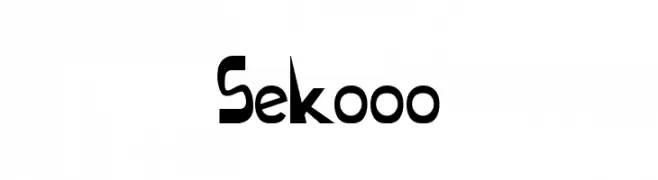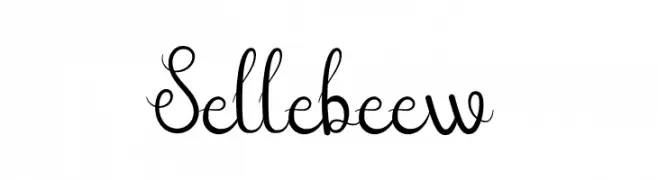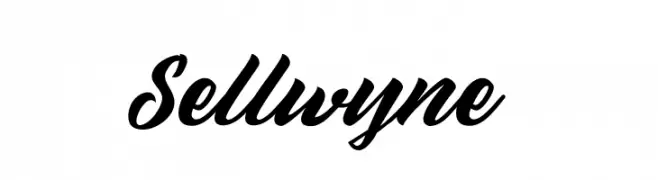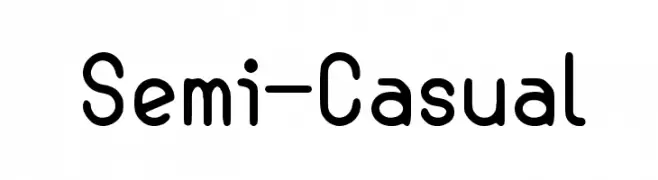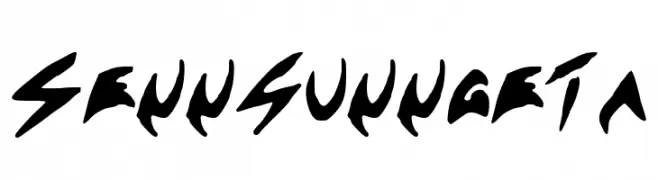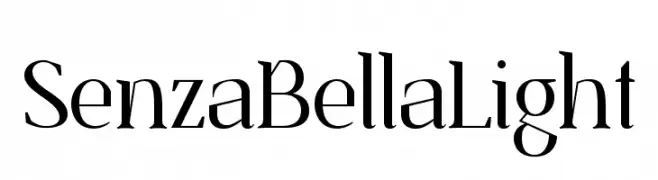
( Serkan Dilemek - www.dijixreklam.com )
A playful, dynamic font with bold, irregular characters and a whimsical style.
( Rasyid Annas )
An elegant, flowing script font with intricate loops and swirls.
( Risman Ginarwan - creativemarket.com/Garisman )
A bold, expressive script font with dynamic cursive strokes and high contrast.
( Walter E Stewart )
A playful, rounded font with a friendly and approachable design.
( Reece Ran )
A bold, dynamic font with sharp, angular strokes and an artistic flair.
( Ryan Williamson )
A bold, high-contrast serif font with pronounced serifs and a dramatic style.
( Ryan Williamson )
A bold serif font with sharp serifs and a modern classic style.
( Ryan Williamson )
A bold, high-contrast serif font with a dramatic and modern style.
( Ryan Williamson )
A refined and elegant font with thin strokes and subtle curves, perfect for sophisticated designs.
( Ryan Williamson )
A modern serif font with high contrast and sharp serifs, blending elegance with contemporary style.